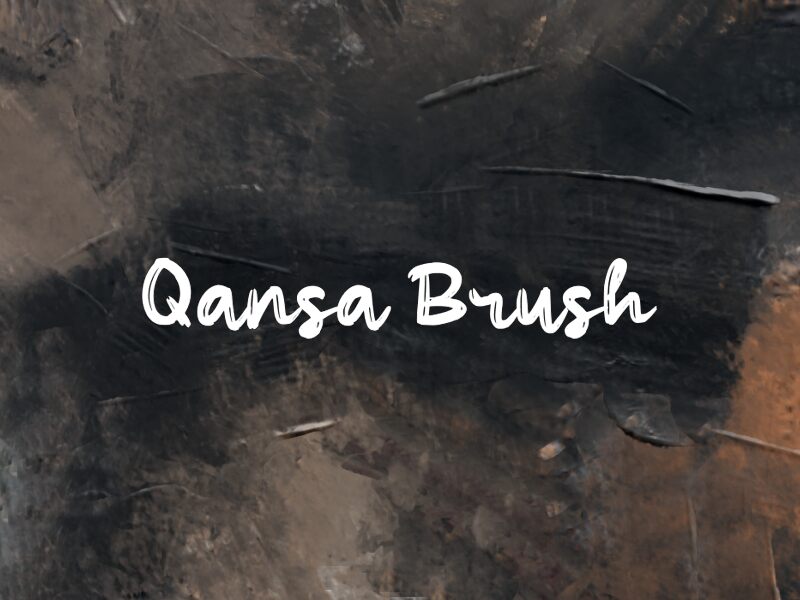
Qansa Brush font by wep embodies a natural and expressive brush style that brings each letter to life. This free font captures the authentic feel of handwritten script, making it an excellent asset for creatives looking to add a personal touch to their projects. Its artistic and contemporary look is complemented by a casual and energetic feel which can turn even the simplest designs into a visual treat.
Qansa Brush is perfect for personal projects including logos, branding, advertising, packaging design, posters, book covers, apparel design, social media graphics, invitations, greeting cards, and blog designs. Use it wherever you would like to create a memorable and stylish visual impression of your project.
Qansa Brush is a stylish and versatile free font that adds a touch of creativity to any design project. With its dynamic brush strokes, this font is ideal for both personal and commercial use. Whether you need a striking headline or an elegant invitation, Qansa Brush is designed to make an impact.